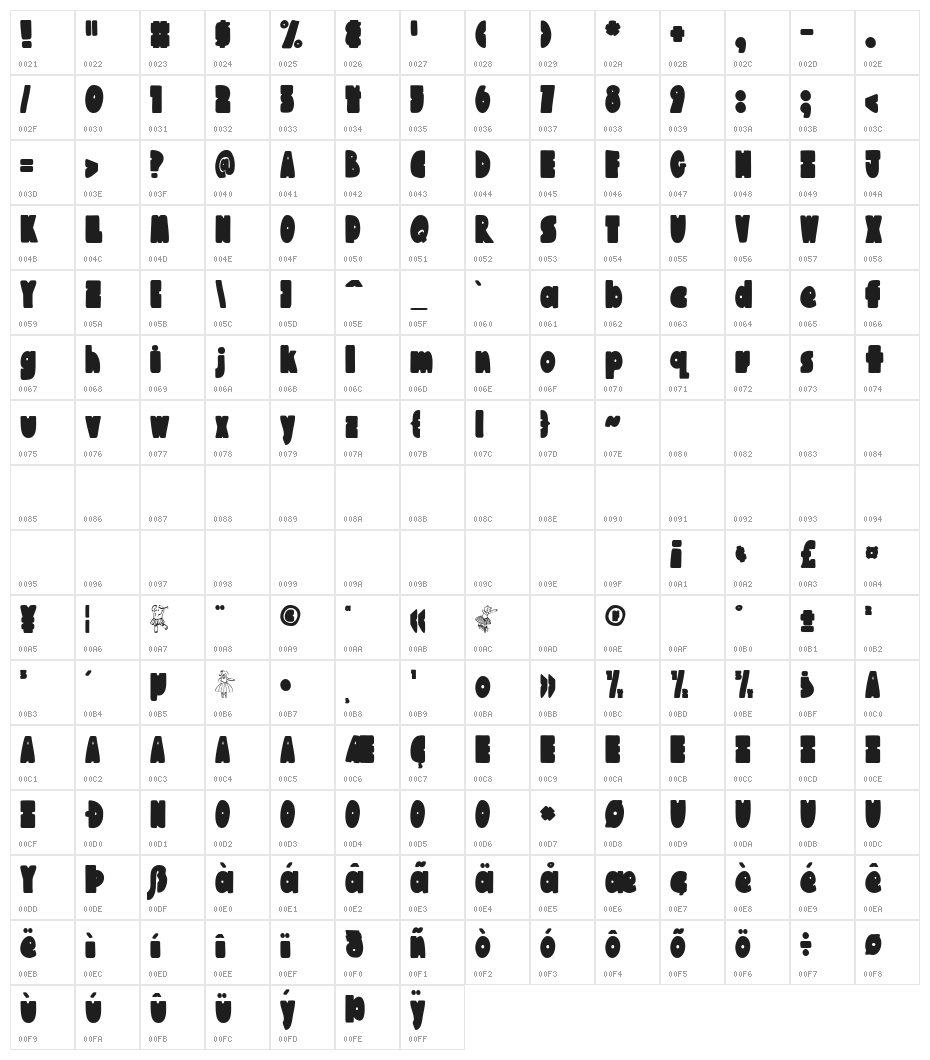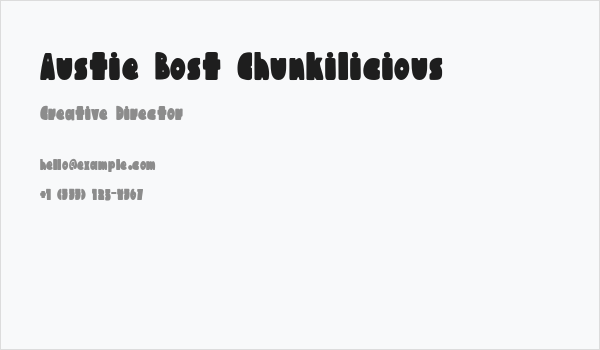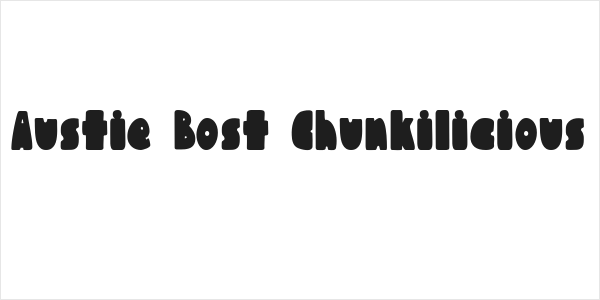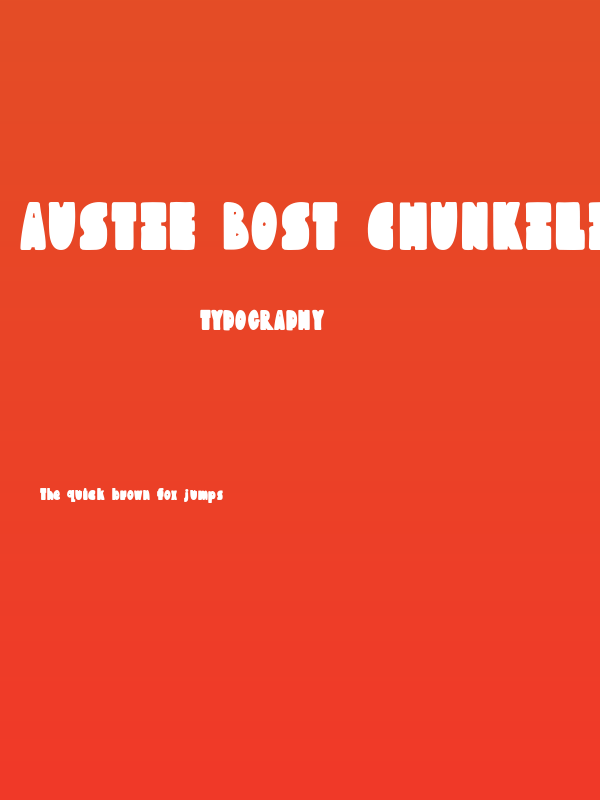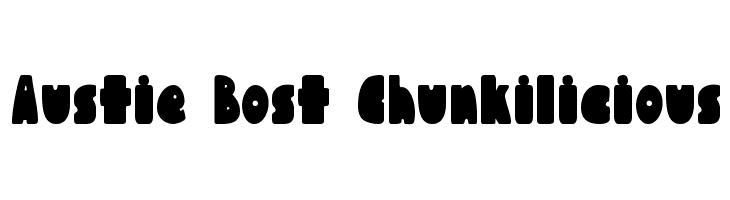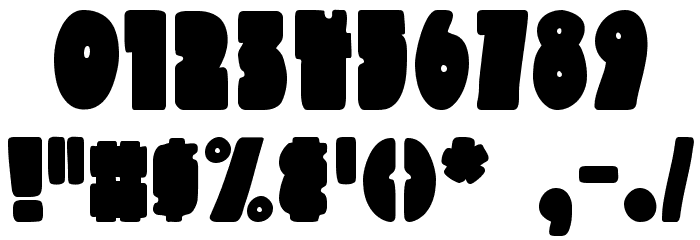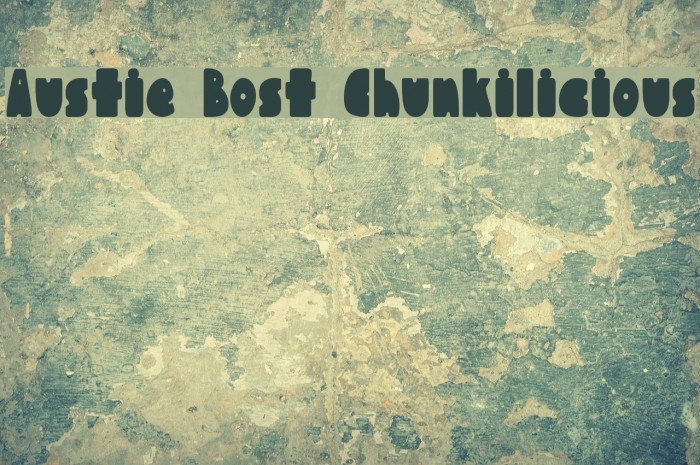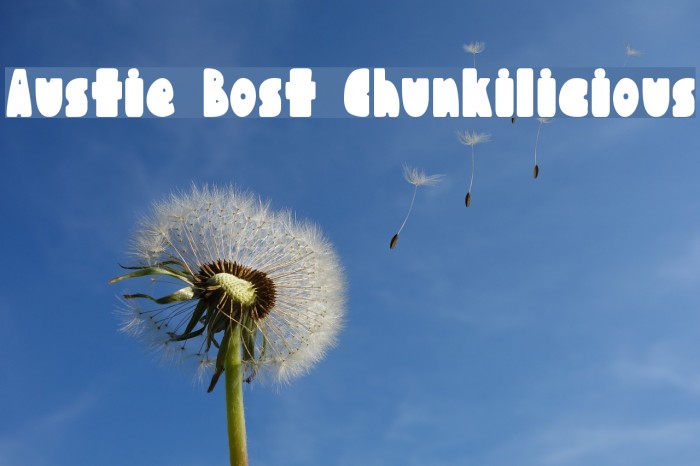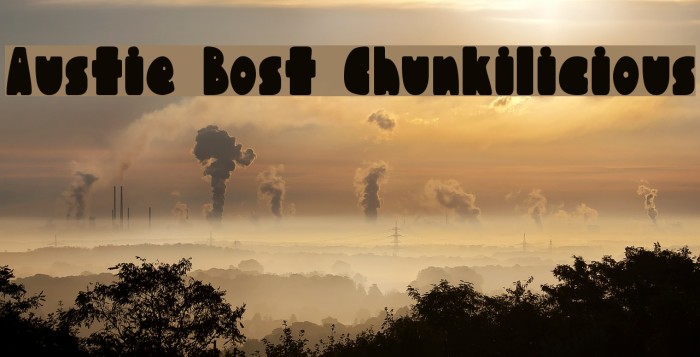
Austie Bost Chunkilicious Font
Austie Bost Chunkilicious Description
This font features a bold and playful style with chunky, rounded characters that exude a sense of fun and whimsy. The letters are uniformly thick, creating a strong visual impact, and the rounded edges soften the overall appearance, making it approachable and friendly. The uppercase and lowercase letters maintain a consistent weight, while the numbers and special characters follow the same design principles, ensuring cohesion across all elements. The font's boldness makes it highly legible, even at smaller sizes, and its unique style is sure to capture attention.
| Overall Style | Playful, Whimsical |
| Proposed Projects | Ideal for children's books, playful branding, party invitations, and eye-catching posters. |